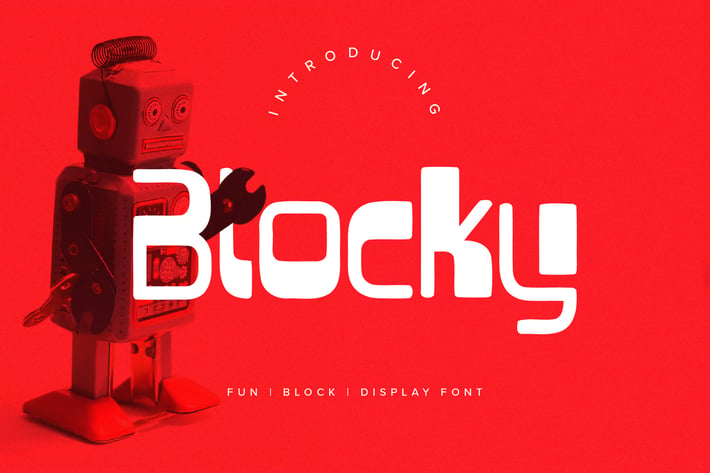
Blocky Fun Display Font
Blocky Fun Display font is a font created with robot & technology in mind. It features a unique style and will add a friendly feel to your upcoming projects. Get inspired by its unique feel and use it to create beautiful poster, product packaging or logo and many more!